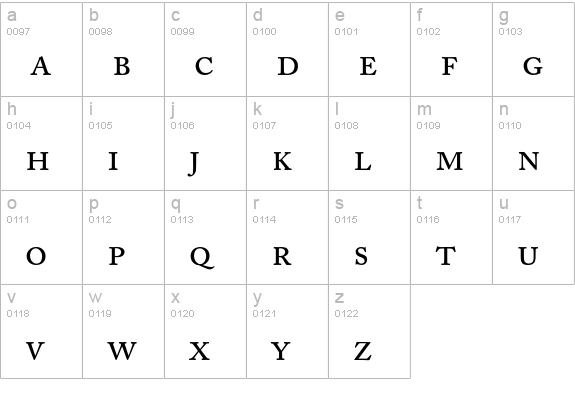
Adobe Caslon Regular Expert Font Details
Adobe Caslon Regular Expert is the standard, neutral variant in the Adobe typeface family \xE2\x80\x94 well suited to general body text, paragraphs, and standard typographic work.
Adobe Caslon Regular Expert font is a classic and elegant typeface that exudes sophistication and timelessness. With its graceful serifs and balanced proportions, this font is perfect for a wide range of design projects, from traditional print materials to digital applications. What sets Adobe Caslon Regular Expert font apart is its expertly designed characters that ensure optimal readability and legibility. The font's versatility allows it to be used for body text as well as headlines, giving your designs a cohesive and polished look. The best part about Adobe Caslon Regular Expert font is that it is available for free download at FontsMarket.com. Whether you are a professional designer looking for a reliable serif font or a student working on a project, this font is a valuable addition to your typographic toolbox. Download Adobe Caslon Regular Expert font today and elevate your designs with its timeless appeal and superior craftsmanship.